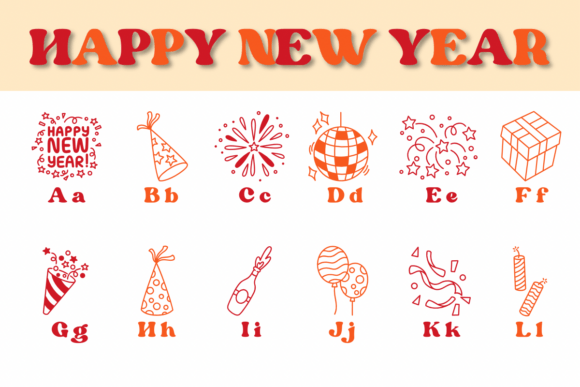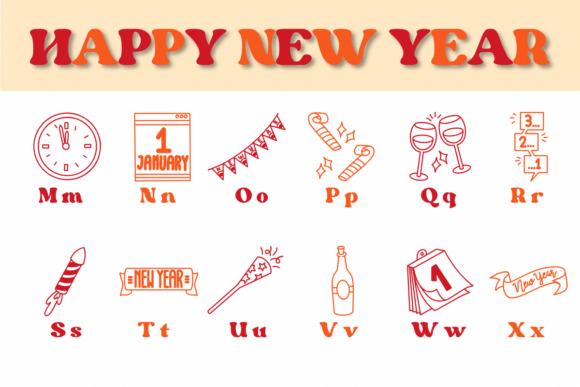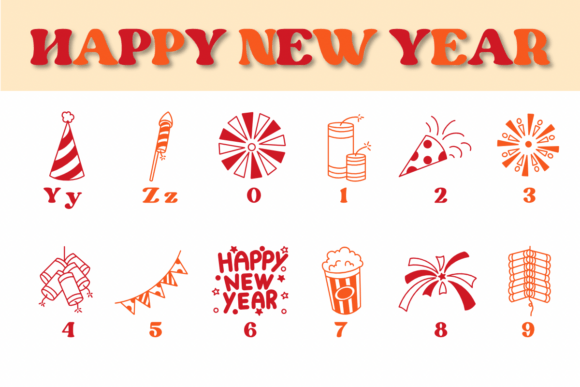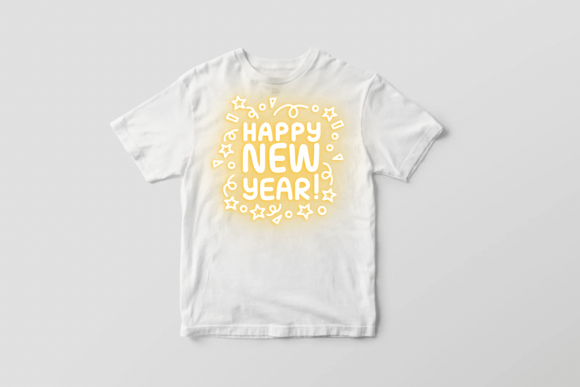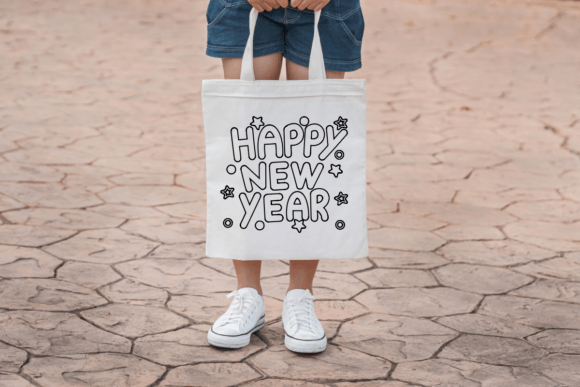
Happy New Year Font: Add a Festive Touch to Your Creative Projects
As the clock strikes midnight on New Year’s Eve, the world welcomes a fresh start with open arms. What better way to celebrate this joyous occasion than by incorporating a festive touch into your creative projects? Introducing the Happy New Year Font, a delightful dingbats font designed to bring a spark of celebration to your designs. In this article, we’ll explore the features and benefits of this charming font, and how it can elevate your creative endeavors.
What is Happy New Year Font?
Happy New Year Font is a unique dingbats font that embodies the spirit of celebration and festivity. This font is carefully crafted to provide a wide range of decorative elements, including fireworks, party hats, noise-makers, and other New Year’s Eve-themed symbols. With its playful and vibrant design, this font is perfect for adding a touch of whimsy and fun to your creative projects.
Features of Happy New Year Font
- Festive theme: The Happy New Year Font boasts a festive theme that’s perfect for New Year’s Eve celebrations, weddings, and other joyous occasions.
- Dingbats design: This font features a delightful dingbats design, complete with decorative elements that add a touch of elegance and sophistication to your projects.
- Wide range of characters: The Happy New Year Font includes a wide range of characters, including fireworks, party hats, and other celebratory symbols.
- Easily customizable: This font is easily customizable, allowing you to adjust the size, color, and style to suit your creative vision.
Benefits of Using Happy New Year Font
So, why choose the Happy New Year Font for your creative projects? Here are just a few benefits of using this delightful font:
- Adds a festive touch: The Happy New Year Font adds a festive touch to your projects, making them perfect for celebrations and special occasions.
- Increases visual appeal: The decorative elements in this font increase the visual appeal of your projects, making them more engaging and attention-grabbing.
- Versatile: The Happy New Year Font is versatile and can be used for a wide range of creative projects, from wedding invitations to DIY crafts and decorations.
Creative Ideas for Using Happy New Year Font
So, how can you use the Happy New Year Font in your creative projects? Here are a few ideas to get you started:
- Wedding invitations: Add a touch of festivity to your wedding invitations with the Happy New Year Font.
- DIY crafts: Use this font to create custom DIY crafts, such as party decorations, gift tags, and more.
- Logos and branding: Incorporate the Happy New Year Font into your logos and branding materials to add a touch of celebration and joy.
- Social media graphics: Use this font to create eye-catching social media graphics that celebrate the New Year.